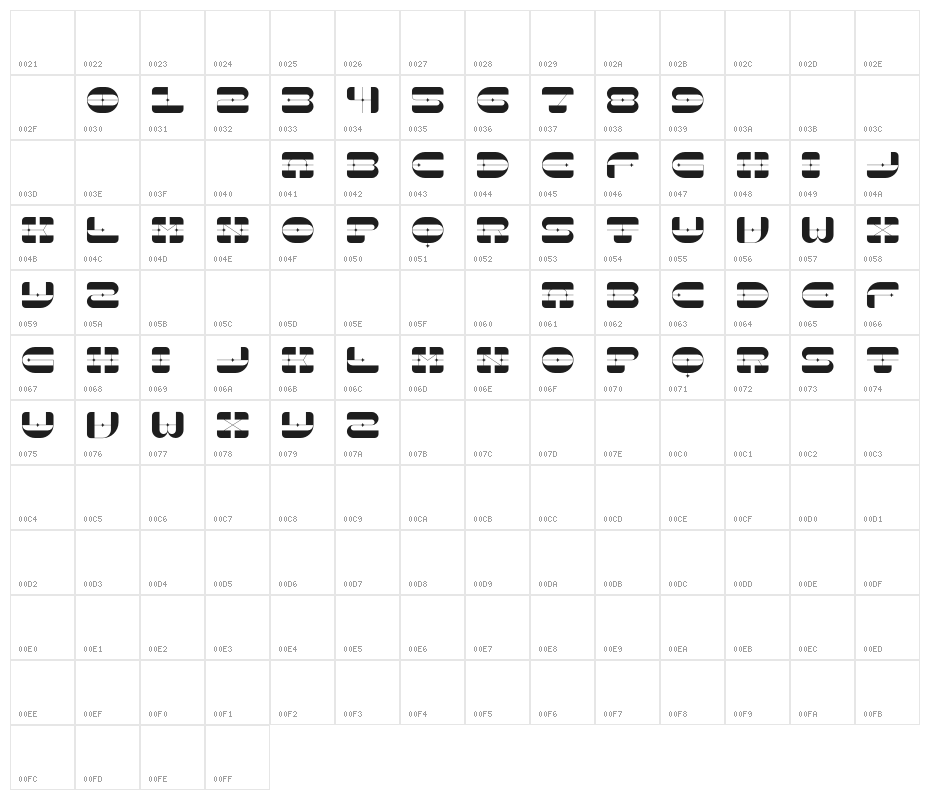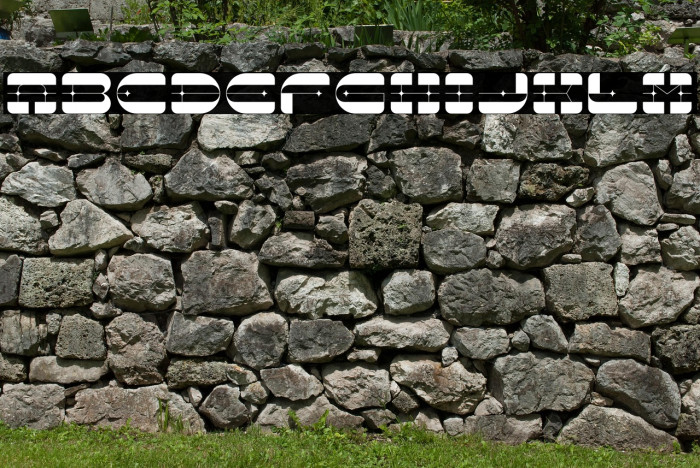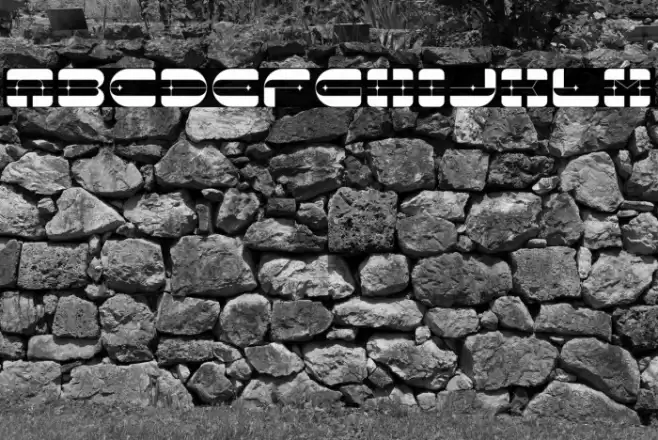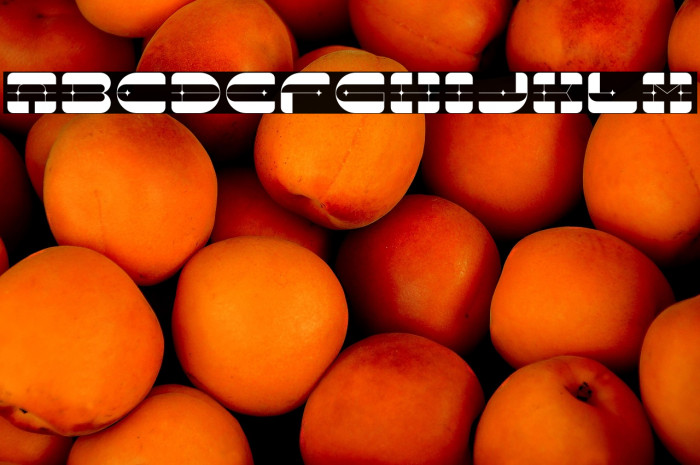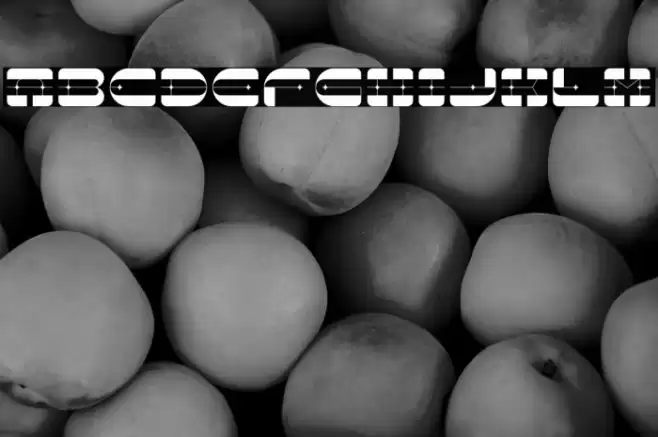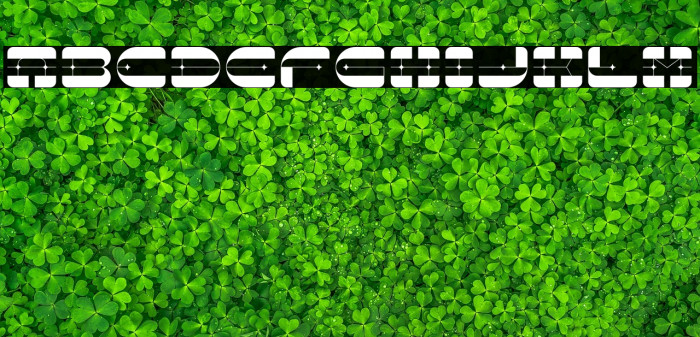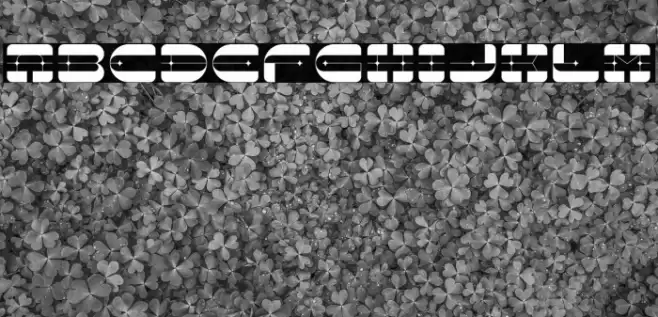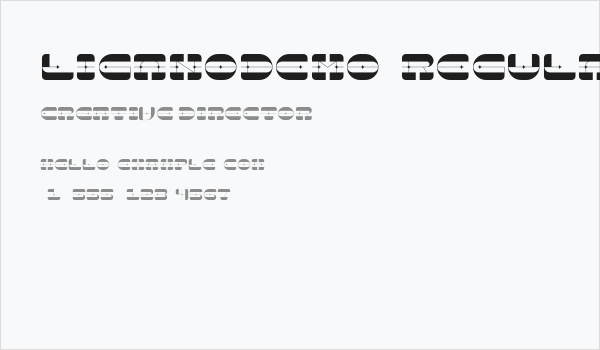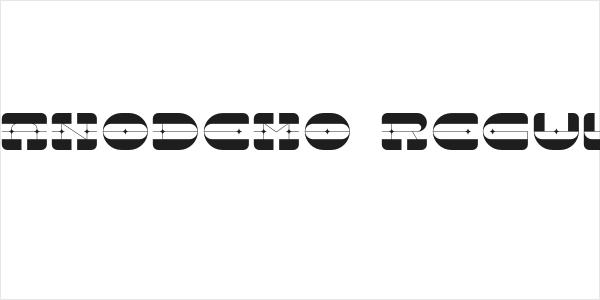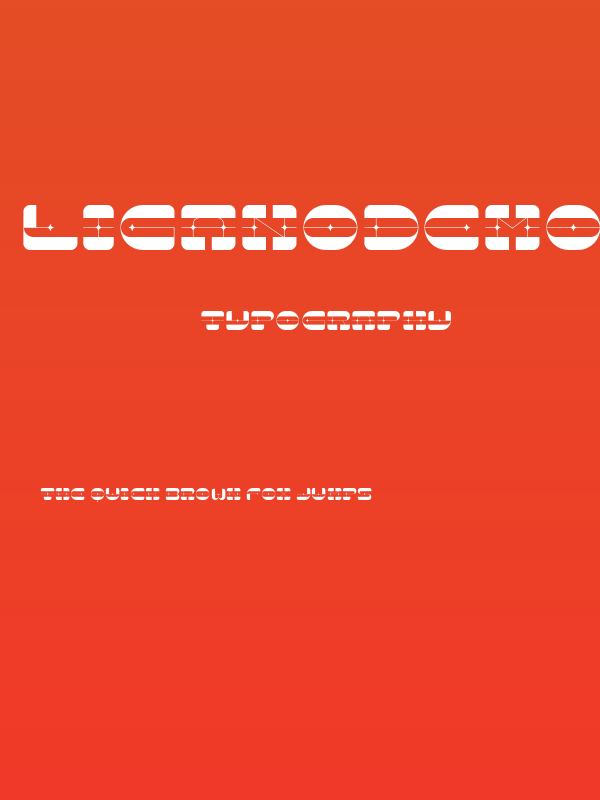
LiganoDemo-Regular Font
This font features a futuristic and geometric design with a unique blend of solid and hollow spaces within each character. The letters are constructed with bold, rounded shapes, and the inclusion of small circular cutouts adds a distinctive, modern touch. The uniformity in the design creates a cohesive look across both uppercase and lowercase letters, as well as numbers and special characters. The font's style is eye-catching and suitable for projects that require a contemporary and innovative appearance.
| Proposed Projects | Ideal for technology branding, sci-fi themed designs, modern posters, and innovative product packaging. |